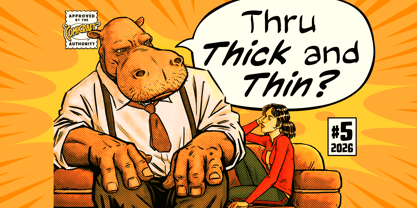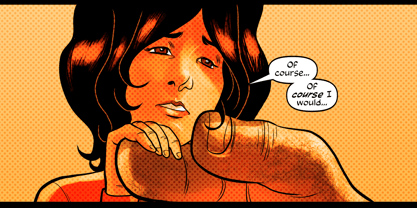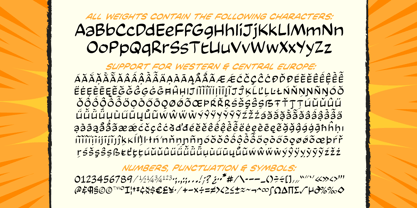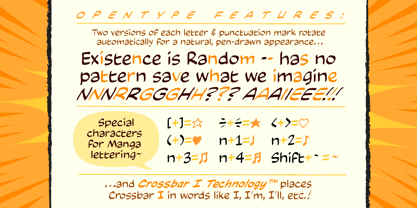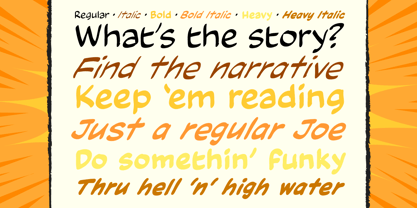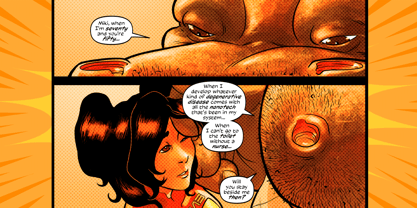
Thru Thick And Thin
Die Schriftfamilie Thru Thick And Thin wurde von John Roshell entworfen und von Comicraft veröffentlicht. Thru Thick And Thin enthält 6 Stile und Familienpaketoptionen. Mehr über diese Familie
What’s the story, Joe? The theme. The narrative. Ya gotta keep people reading, Joe, simple as that. Keep them engaged. You’re a regular Joe but sometimes ya gotta be bold, italicized, do somethin funky with serifs. Keep people reading, make ‘em pay attention. They gotta follow ya thru hell ’n’ high water, thru good times ‘n’ bad, thruthicknthin.
Keep your readers engaged Thru Thick And Thin with Comicraft's latest Balloon Lettering font! It's got six weights in upper and lowercase, each with two versions of every letter which automatically rotate for an authentic hand-drawn look.